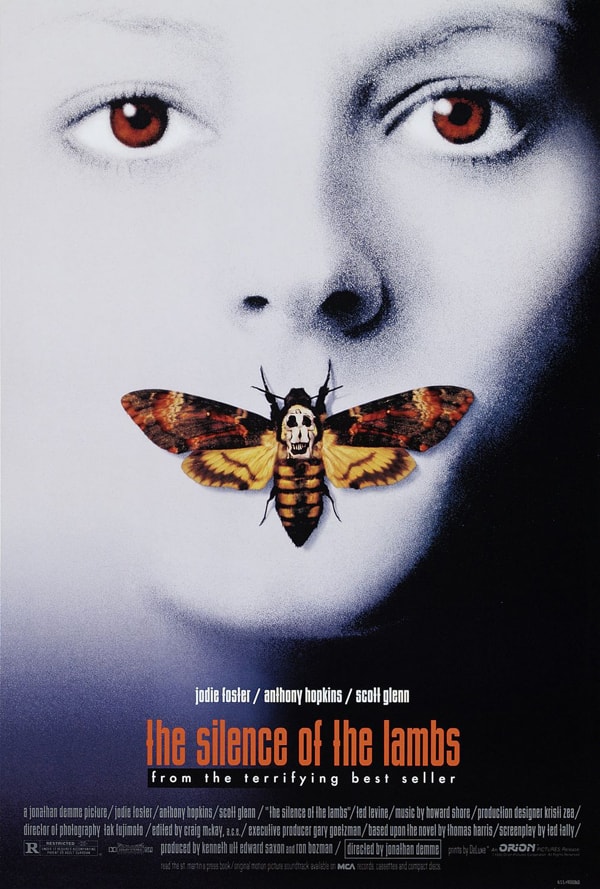
The Silence of the Lambs Font
Fonts in UseThe Silence of the Lambs is a gripping psychological thriller where a young FBI trainee seeks the help of an incarcerated cannibalistic serial killer to catch another deranged murderer, unleashing a chilling cat-and-mouse game of wits that tests her courage and sanity.
The font chosen for the film title in the poster resembles Bindlestiff NF, an upright and compact display font crafted by Nick Curtis. You can view and download the font here.